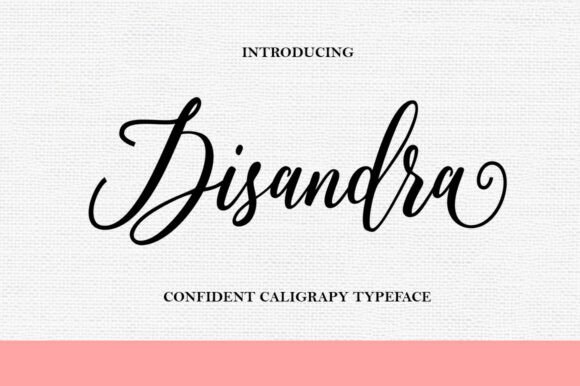
Introducing Disandra Font: The Epitome of Elegance and Sophistication
In the realm of typography, few fonts manage to convey the essence of luxury and refinement as effortlessly as Disandra. This sophisticated and elegant stylistic script font is a masterpiece of design, boasting flowing, graceful curves and intricate details that evoke the charm of hand-crafted calligraphy. With its stylish swashes and smooth ligatures, Disandra is the perfect choice for designers seeking to create visually stunning designs that demand attention.
The Design Philosophy Behind Disandra
Disandra’s design is rooted in the principles of traditional calligraphy, where every line, curve, and flourish is carefully crafted to convey a sense of elegance and sophistication. The font’s creator has meticulously refined each character to ensure that it exudes a sense of refinement and luxury, making it ideal for high-end applications.
One of the standout features of Disandra is its use of swashes and ligatures. These elegant flourishes add a touch of sophistication to any design, elevating it from ordinary to extraordinary. The font’s swashes are carefully designed to flow seamlessly with the characters, creating a sense of continuity and harmony.
Applications for Disandra
Disandra’s versatility is one of its greatest strengths, making it suitable for a wide range of applications. Some of the most popular uses for this font include:
- Wedding Invitations: Disandra’s elegant and refined aesthetic makes it the perfect choice for wedding invitations, adding a touch of sophistication to this special occasion.
- Luxury Branding: For brands seeking to convey a sense of luxury and refinement, Disandra is an excellent choice. Its stylish swashes and smooth ligatures make it ideal for creating high-end logos and marketing materials.
- Fashion Labels: Disandra’s fashion-forward design makes it a popular choice for fashion labels seeking to create stylish and sophisticated branding.
- High-End Packaging: For luxury brands seeking to create high-end packaging that stands out on store shelves, Disandra is an excellent choice.
Customization Options with Disandra
One of the benefits of using Disandra is the ability to customize it to suit your specific design needs. With a range of stylistic alternates and ligatures, designers can create unique and personalized designs that reflect their brand’s aesthetic.
Disandra’s flexibility also makes it easy to pair with other fonts, allowing designers to create visually striking combinations that add depth and interest to their designs.
The Benefits of Using Disandra
So why choose Disandra for your design projects? Here are just a few benefits of using this elegant and sophisticated font:
- Timeless Appeal: Disandra’s classic design ensures that it will remain a timeless and elegant choice for years to come.
- Refined Aesthetic: Disandra’s refined aesthetic makes it perfect for high-end applications where luxury and sophistication are paramount.
- Versatility: Disandra’s versatility makes it suitable for a wide range of applications, from wedding invitations to luxury branding.
- Ease of Use: Disandra is easy to use and customize, making it accessible to designers of all skill levels.
In conclusion, Disandra is a sophisticated and elegant stylistic script font that is sure to elevate any design project. With its flowing, graceful curves and intricate details, this font embodies the essence of hand-crafted calligraphy. Its stylish swashes and smooth ligatures make it perfect for creating visually stunning designs that demand attention.
Whether you’re designing wedding invitations, luxury branding, fashion labels, or high-end packaging, Disandra is an excellent choice. Its timeless appeal, refined aesthetic, and versatility make it a go-to font for designers seeking to add a touch of elegance and sophistication to their work.